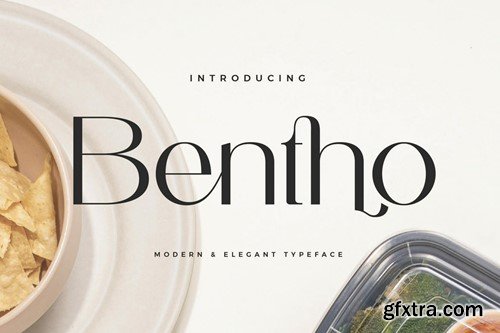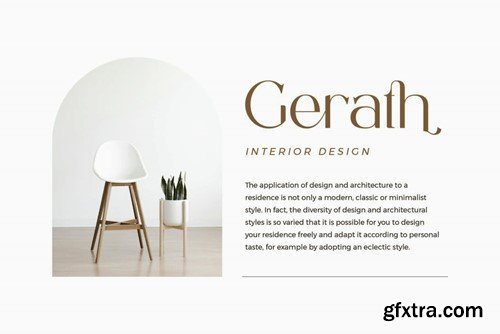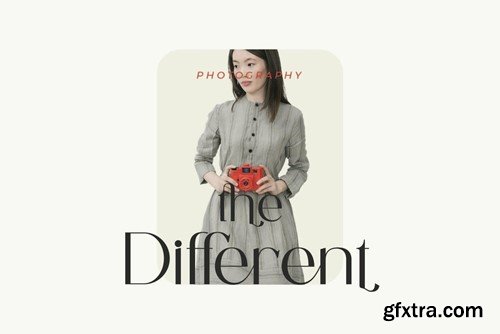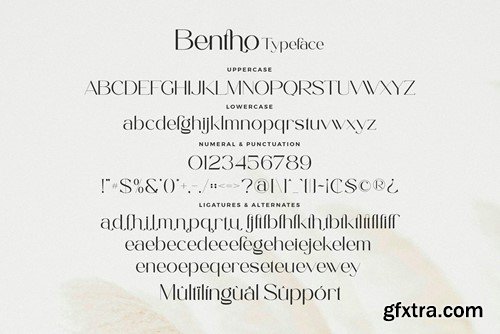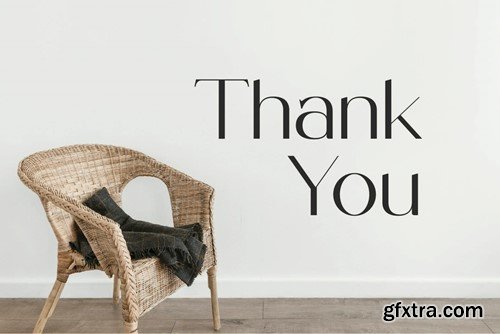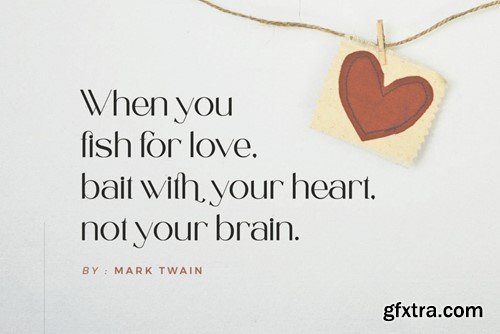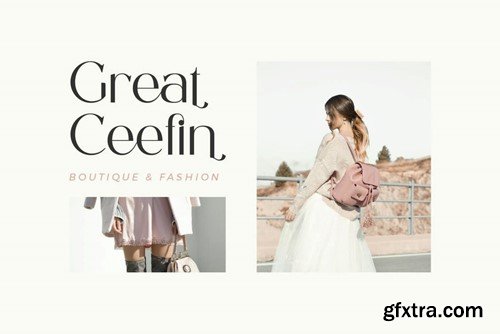
Bentho - Modern Ligature Font 4RBQHTE
Bentho - Modern Ligature Font
Bentho Font Typeface inspired by the famous minimalist logo perfect for the purposes of designing templates, brochures, videos, advertising branding, logos, invitation, layout design, elegant crafting, beauty design and other.
• Ligatures
• International Accent